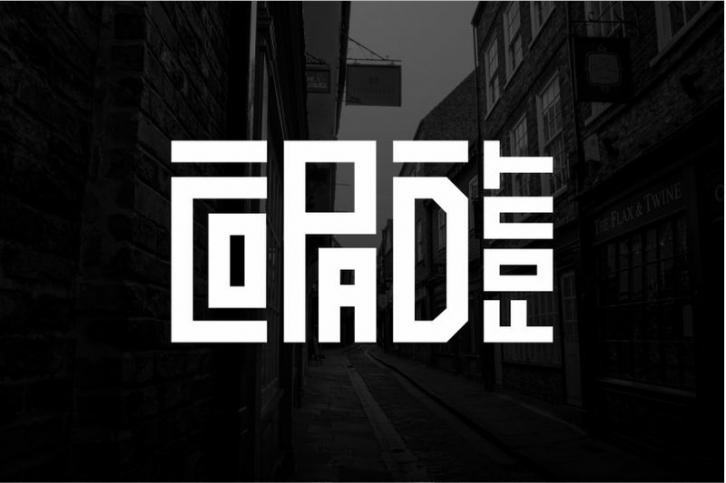
Copadi fonts are variations of clean display fonts with 3 styles that are very suitable to be combined, with normal fonts, short and variations. This is a very versatile font that works very well in large and small sizes.
arsyano fonts are suitable for branding projects, music brands, product packaging, magazine headlines, car workshops, classic, vintage, typography, wordmark or just as a style text overlay for any background image.